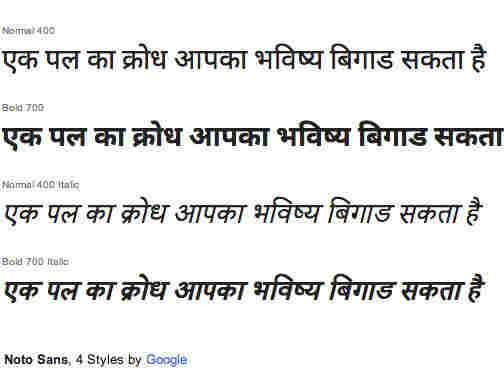
Can Google Build A Typeface To Support Every Written Language?
Google's Noto font as it displays for Devanagari script, used to write Hindi. Google hide caption
Google has taken on its fair share of ambitious projects — digitizing millions and millions of books, mapping the whole world, pioneering self-driving cars. It's a company that doesn't shy away from grand plans.
But one recent effort, despite its rather lofty scope, has escaped much notice. The company is working on a font that aims to include "all the world's languages" — every written language on Earth.
"Tofu" is what the pros call those tiny, empty rectangles that show up when a script isn't supported. This is where Google's new font family, "Noto," gets its name: "No Tofu."
Right now, Noto includes a wide breadth of language scripts from all around the world — specifically, 100 scripts with 100,000 characters. That includes over 600 written languages, says Jungshik Shin, an engineer on Google's text and font team. The first fonts were released in 2012. But this month, Google (in partnership with Adobe) has released a new set of Chinese-Japanese-Korean fonts — the latest in their effort to make the Internet more inclusive.
But as with any product intended to be universal, the implementation gets complicated — and not everyone for whom the product is intended is happy.
'Internationalizing' The Internet
It all started with the Unicode Consortium — a nonprofit for the "internationalization" of the Internet — which kicked off the research into language fonts in 1987. It started work on what was called the Unicode Standard — a "character coding system designed to support the worldwide interchange, processing and display of the written texts of the diverse languages and technical disciplines of the modern world."
Basically, what Unicode was trying to do was create a unique combination of numbers (known as a "code point") for every character, in every written language, ever.
So it kind of makes sense that it took awhile. In fact, the wider adoption of this standard for Web browsers happened only around 2008, says Finn Brunton, professor of media, culture and technology at New York University.
"It's an enormous shame — kind of a calamity — that we're using systems designed so narrowly around the needs and languages of a very narrow group of people," Brunton says. It's ironic, he adds, because the Internet was conceived as a global network of computers.
Updates to Unicode's standard for languages and characters are made incrementally. What Google is trying with Noto is a large-scale rollout of fonts consistent with the Unicode Standard — so that now people all over the world can make Web pages, apps and URLs, all in their own languages.
Universality Vs. Individuality
But critics like Pakistani-American writer Ali Eteraz are suspicious about grand plans by any of these big companies.
"I tend to go back and forth," Eteraz says. "Is it sort of a benign — possibly even helpful — universalism that Google is bringing to the table? Or is it something like technological imperialism?"
What he means is that when one group of people (in this case, Google) decides what to code for and what not to — and in what way — people who are not a part of that decision-making process, those who actually use these fonts and these languages, can feel ill-served.
It's understandable for linguistic communities to feel like this, Brunton says, because the record of big companies aiming for linguistic diversity on the Web isn't a sparkling one.
One bitter chapter was written when Unicode tried to implement Han unification — an effort to unify characters shared by written Chinese, Japanese and Korean languages into a single "character set." Because the technology wasn't there yet, Unicode ran out of unique code points, which, remember, are required for every language character.
"So they were like, 'Hey, you know, Chinese, Japanese, Korean — they're pretty close. Can we just mash big chunks of them together?'" explains Brunton.
"There's all these different, sort of, approaches, which are fundamentally, obviously reflecting cultural models — cultural biases," Brunton adds. "But when they get substantiated into software, they turn into exclusionary systems."
The Han characters are shared between the three languages but weren't exactly the same — so clubbing them all together as one character set caused discrepancies in spellings in each of these languages.
That promise comes with a lot of responsibility, Eteraz says.
"Language is the building block of people's identities all around the world, and Google is basically saying that, 'We got this,' " he says.
"Whether that strikes you as hubris or whether it's noble depends on whether they pull it off."